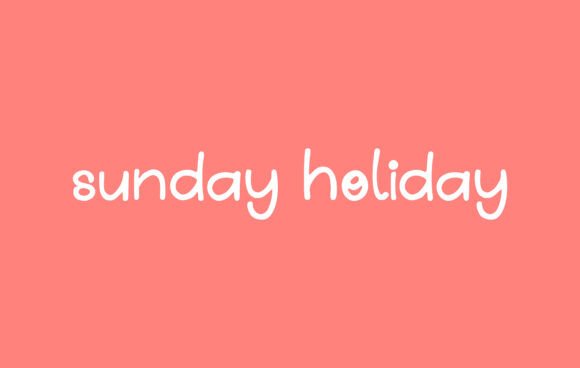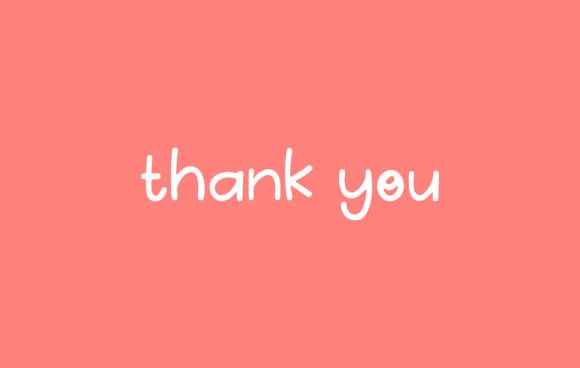
The Alaina Font: A Romantic Handwritten Treasure for Designers
Have you ever been in the middle of a design project, and suddenly, you just can’t seem to find the right font? I recall a particularly frustrating moment when a client asked for a romantic, handwritten font for their wedding invitation design. After scouring the internet for hours, I stumbled upon the Alaina font. It was love at first sight! 💕
With its authentic handwritten feel and romantic touch, Alaina has become a true favorite in my design toolkit. In this article, I’ll share with you why I adore this font, its features, and how to make the most of it in your designs.
An Honest Review of Alaina Font
What I Love About Alaina Font ✨
- ✅ Legibility: Alaina font is incredibly easy to read, making it perfect for both title and body text.
- ✅ Romantic Touch: The font’s handwritten feel adds a touch of elegance and sophistication to any design.
- ✅ Versatility: Alaina font is suitable for a wide range of design projects, from magazine headlines to social media graphics, branding, wedding invitations, and more.
- ✅ Authentic Handwritten Feel: The font’s unique, handcrafted look sets it apart from more generic fonts.
While Alaina font is an excellent choice for many design projects, there are a few minor limitations to consider:
- ⚠️ Limited Character Set: As with any font, there may be limitations to the character set, so be sure to check for special characters or glyphs.
- ⚠️ Not Suitable for Body Text in Small Sizes: While Alaina is legible, it may not be the best choice for body text in very small sizes, as some details may get lost.
The Story Behind Alaina Font
While the origins of Alaina font are shrouded in mystery, it’s clear that the designer had a deep understanding of the emotional impact of typography. With its authentic handwritten feel and romantic touch, Alaina font is a testament to the power of beautiful design.
Q: What is the best use for Alaina font?
A: Alaina font is perfect for designs that require a romantic, handwritten touch, such as wedding invitations, social media graphics, and branding materials.
Q: Is Alaina font suitable for body text?
A: While Alaina font is legible, it may not be the best choice for body text in very small sizes. It’s better suited for title text or larger body text.